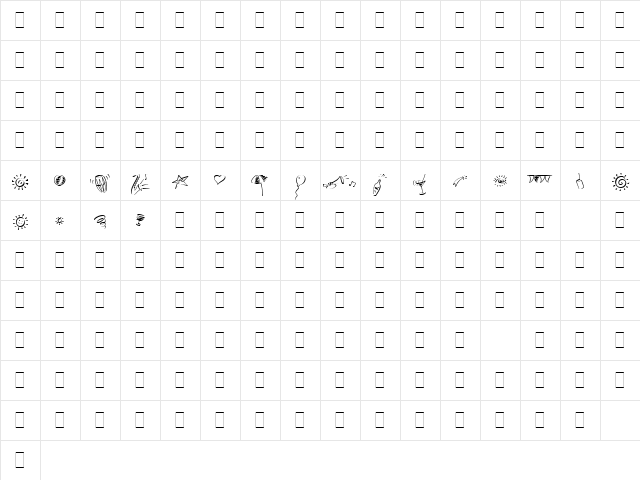
Complete Party Pi LET Plain glyph index. Displaying only characters natively supported by Party Pi LET Plain font.
Party Pi LET is a composed and adaptable typeface that performs quietly and consistently across a wide range of design contexts.